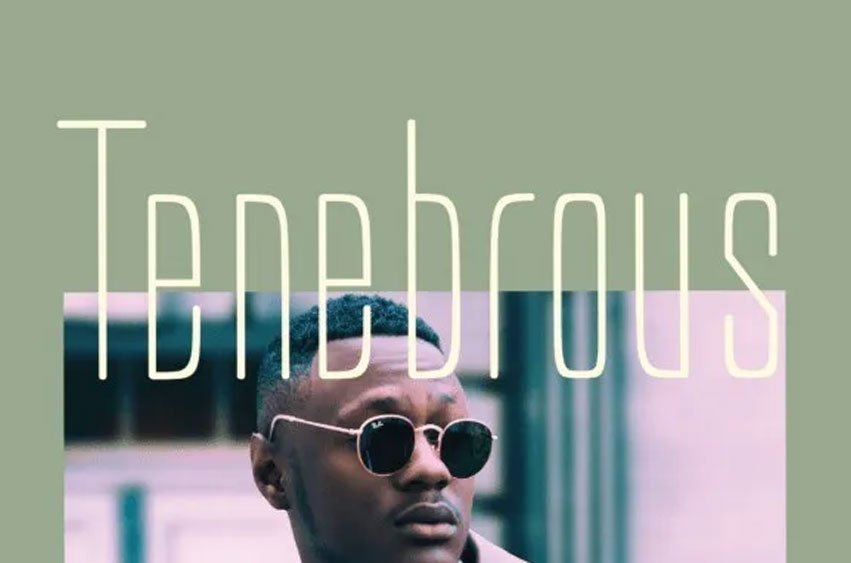
Tanebrous Font is a modern family of Display sans serif fonts. Koumon has 9 family fonts, starting from the small thin to the largest black. This typeface is versatile and can be used successfully in magazines, posters, branding, websites, etc.
Tanebrous Font Preview